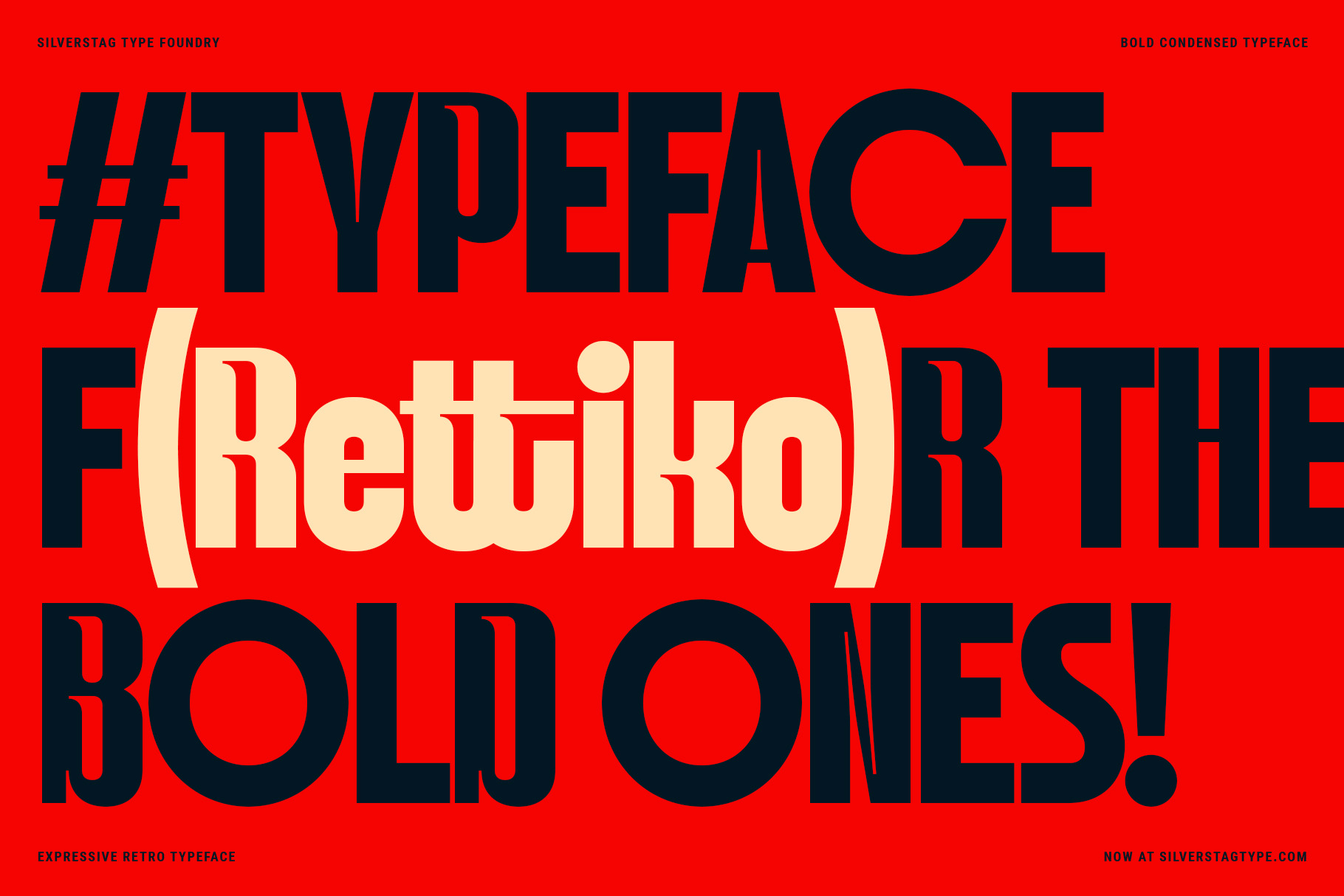
Rettiko - Bold Condensed Typeface
SLTF Rettiko is a bold condensed display typeface built for designers who want typography that speaks first. Inspired by retro display styles and refined for modern use, Rettiko delivers strong vertical rhythm, confident proportions, and unmistakable presence.
Its condensed structure makes it ideal for headlines, posters, fashion visuals, packaging, album artwork, and social media graphics where space is limited but impact is essential. Rettiko’s letterforms are sharp and deliberate, balancing expressive character with clean construction to ensure consistency across layouts.
The typeface includes uppercase and lowercase letters, numerals, punctuation, and multilingual support, making it flexible enough for branding systems while still excelling as a display font. Rettiko works especially well when paired with minimal compositions, photography, and bold color choices.
If you are looking for a condensed typeface with retro attitude, modern control, and strong visual authority, Rettiko is designed to stand out.